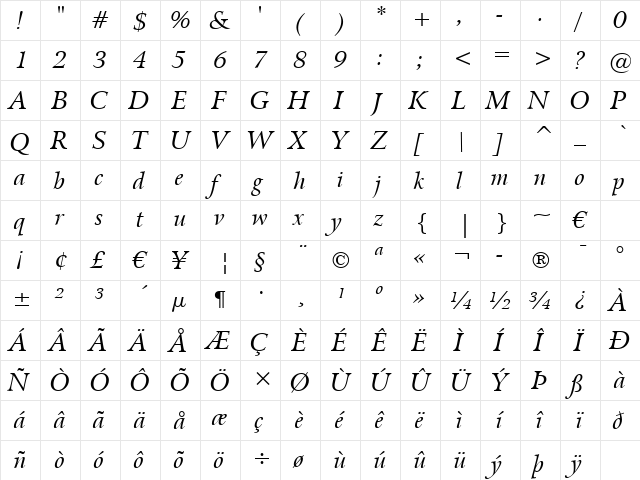
Arrus BT Italic
Design Context for Arrus BT Typeface
Arrus BT takes a measured approach to typography — its balanced proportions and neutral character make it a reliable workhorse for both digital and print work. The slanted form adds forward momentum and visual energy.